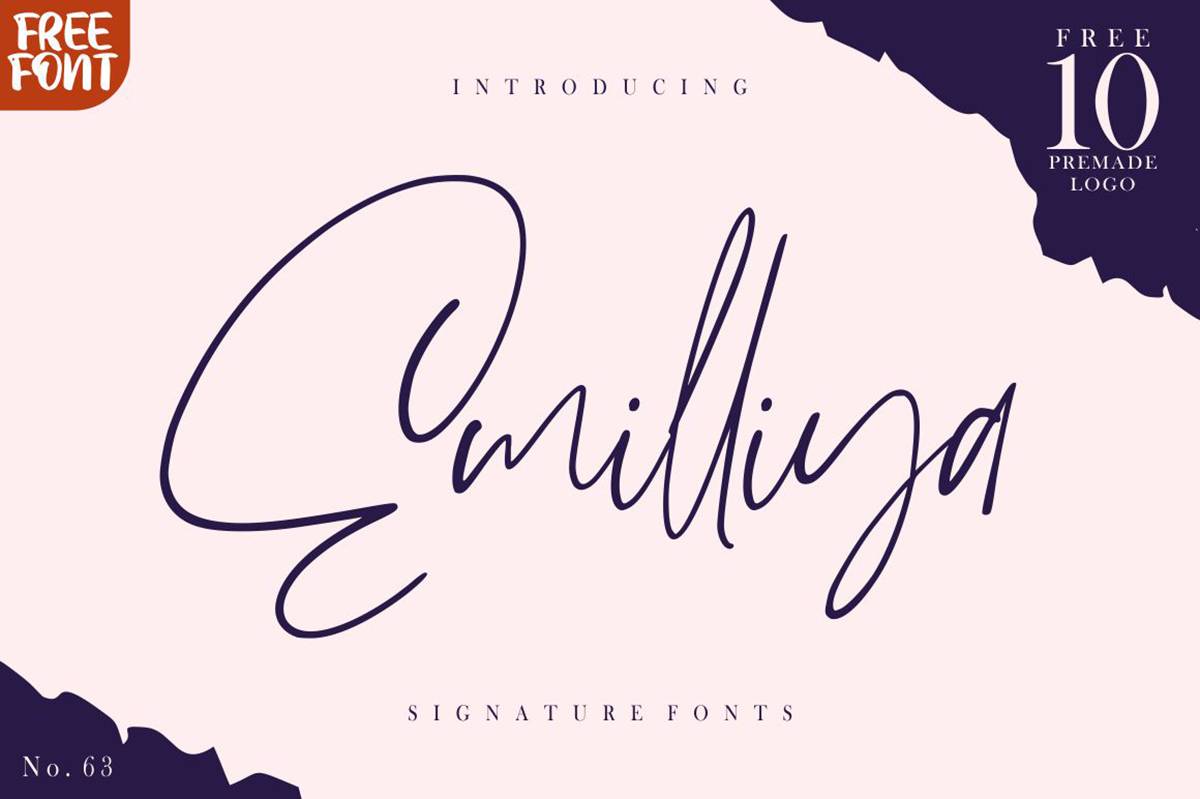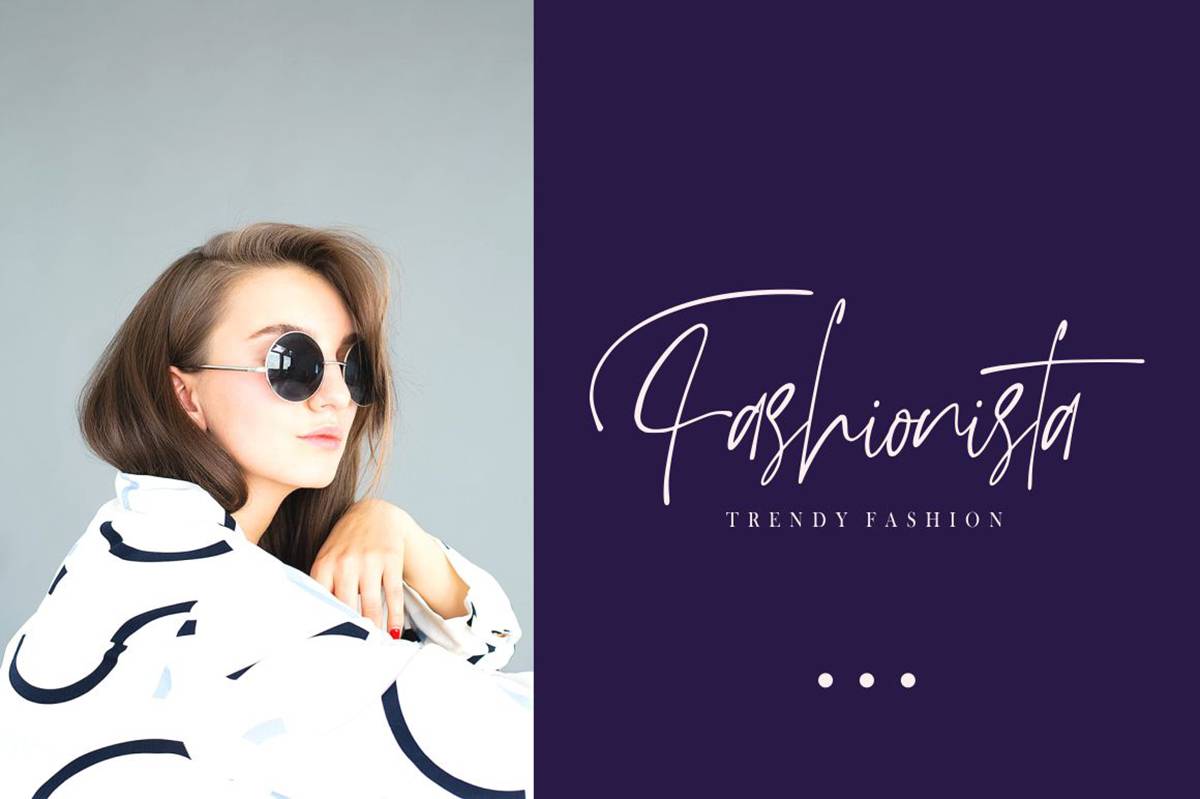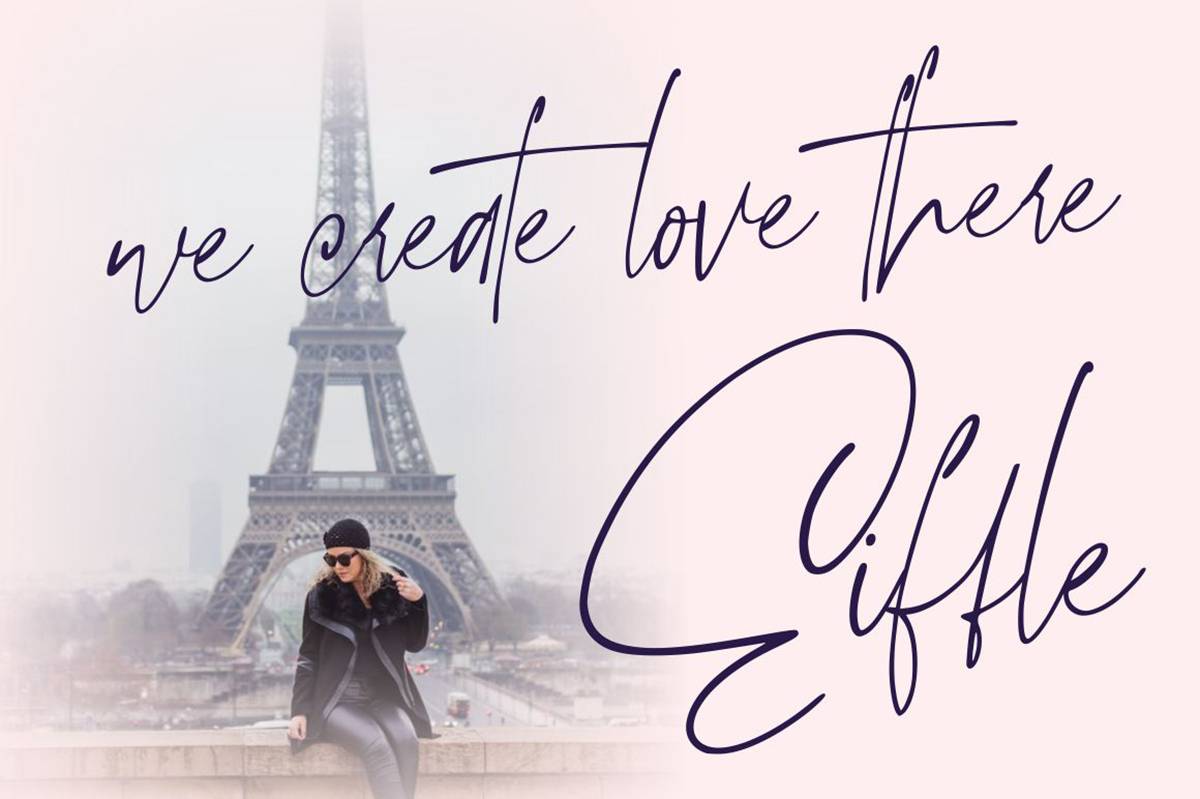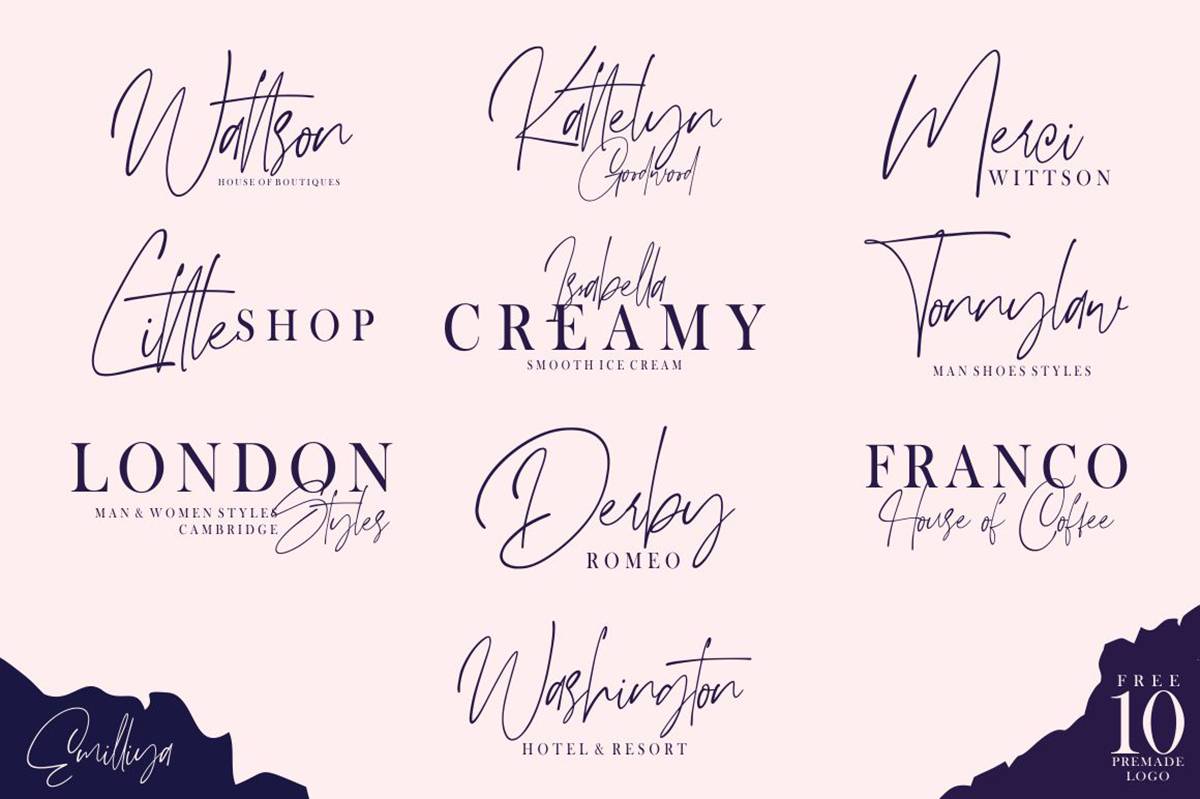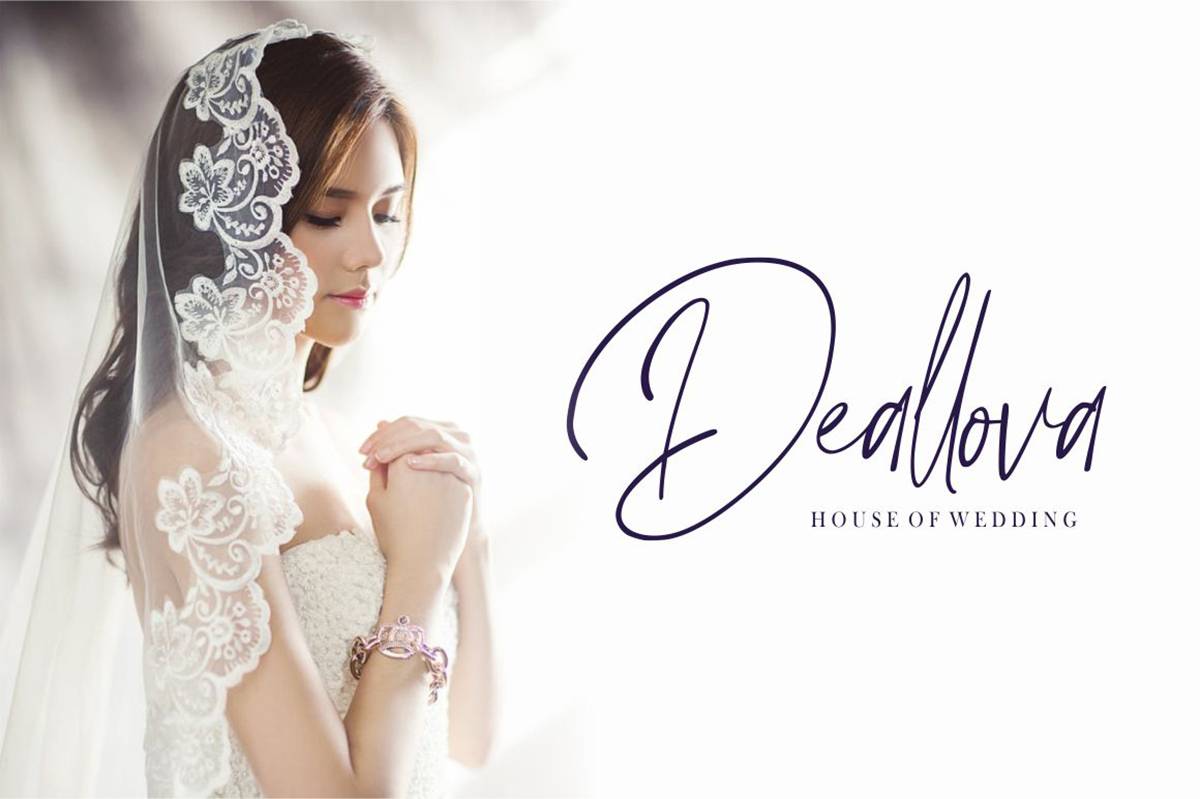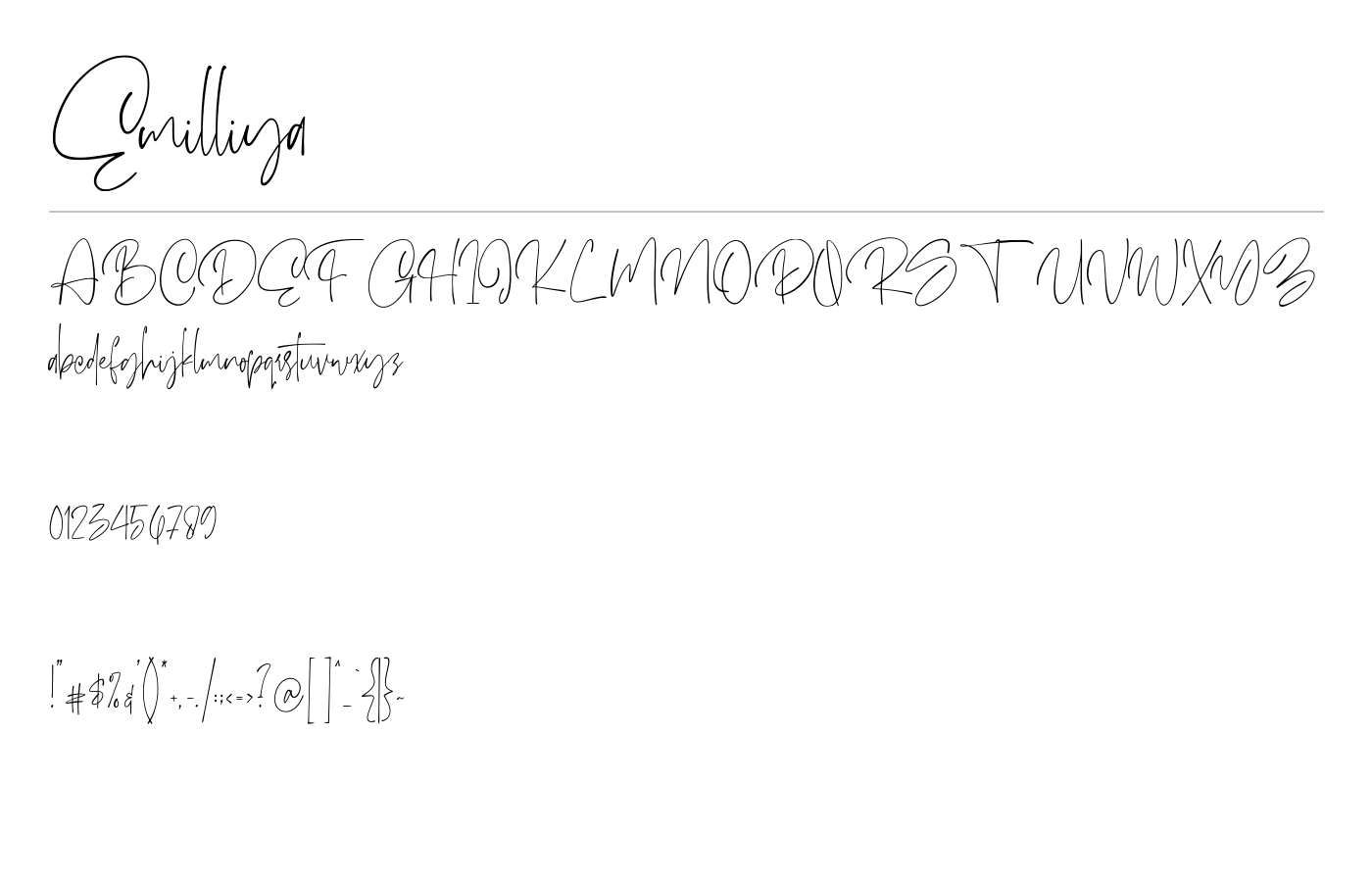
Emilliya is a delicate, handwritten script font characterized by its thin, elegant strokes and high, airy x-height that conveys a personal, artistic touch. Its narrow, flowing letterforms and graceful curves create a modern, whimsical style perfect for branding, invitations, and creative projects that seek a sophisticated yet approachable feel. This font works especially well in logos and headlines where a refined, charming personality is desired.
Emilliya Font
About Emilliya Font
| Font family | Emilliya Font |
| Designer | Good Java Studio |